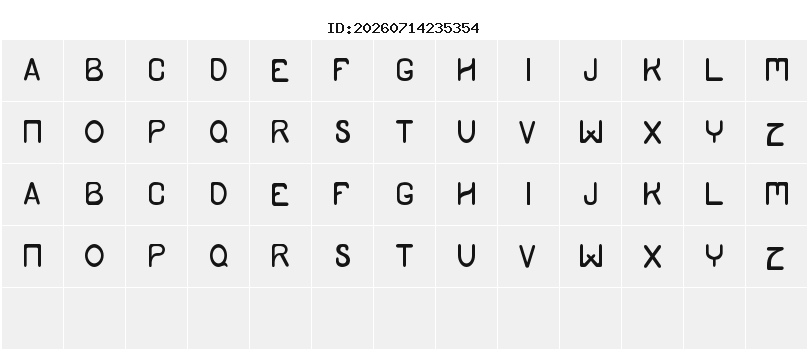
• Font Name: Yamdum style
About Yamdum style.ttf
Yamdum style.ttf is a modern, elegant sans-serif font designed for ultimate readability and visual harmony. Perfect for branding, headlines, web design, and print materials.